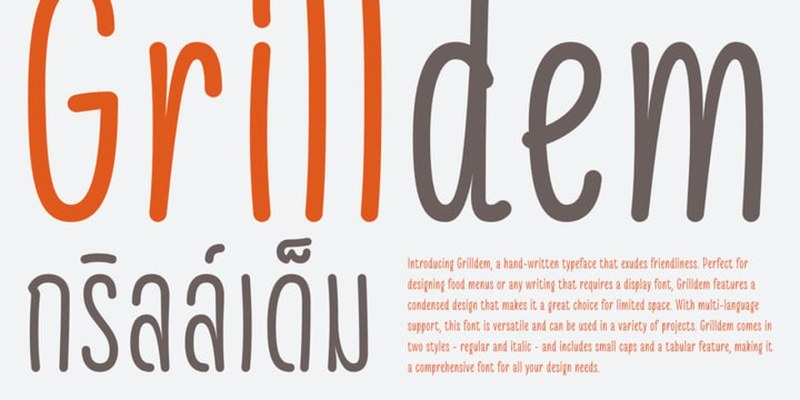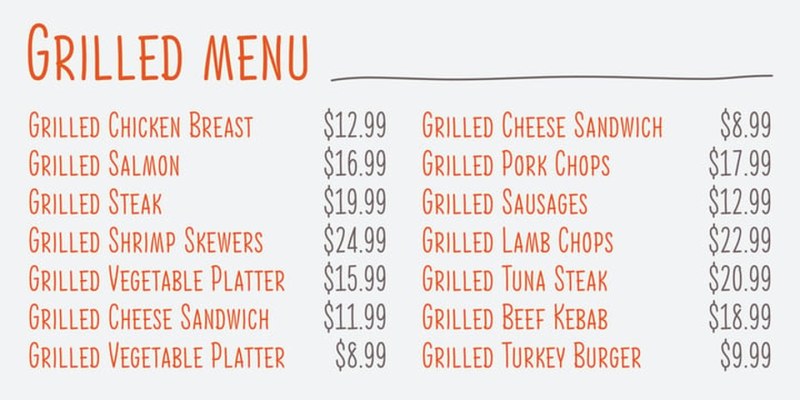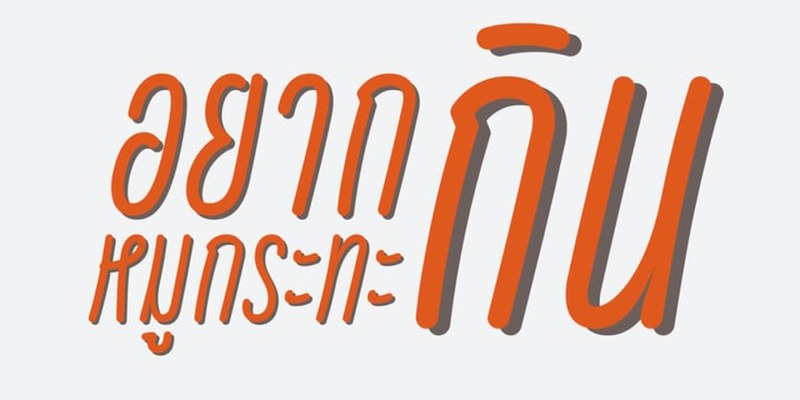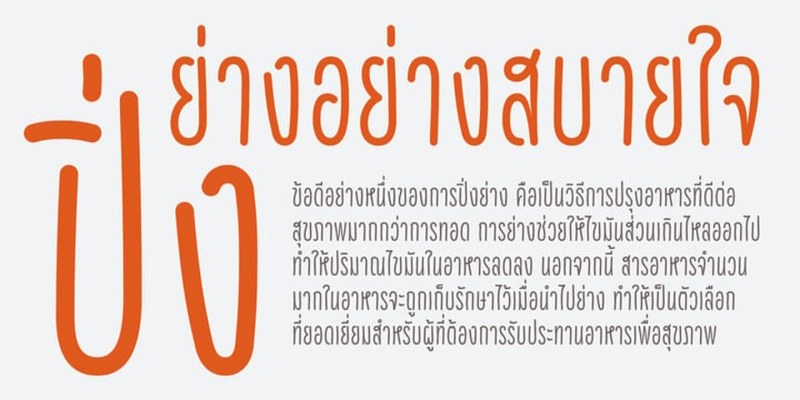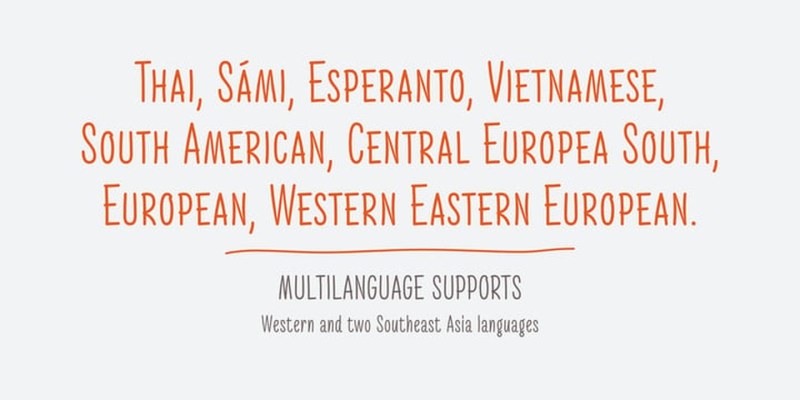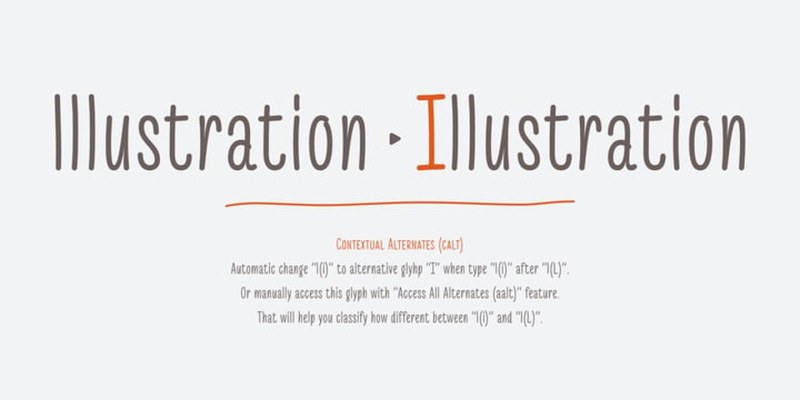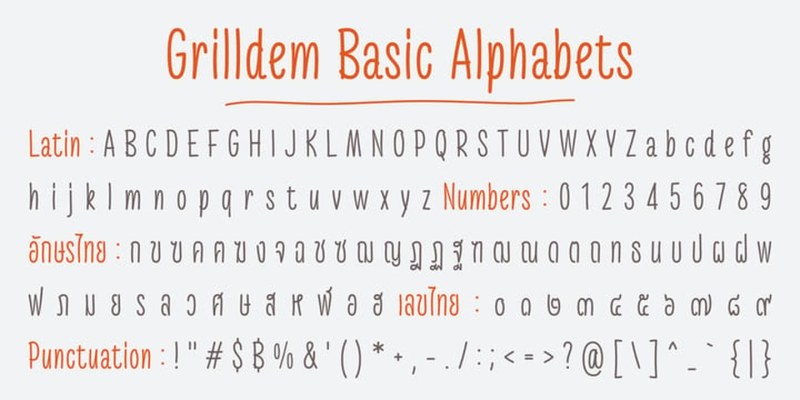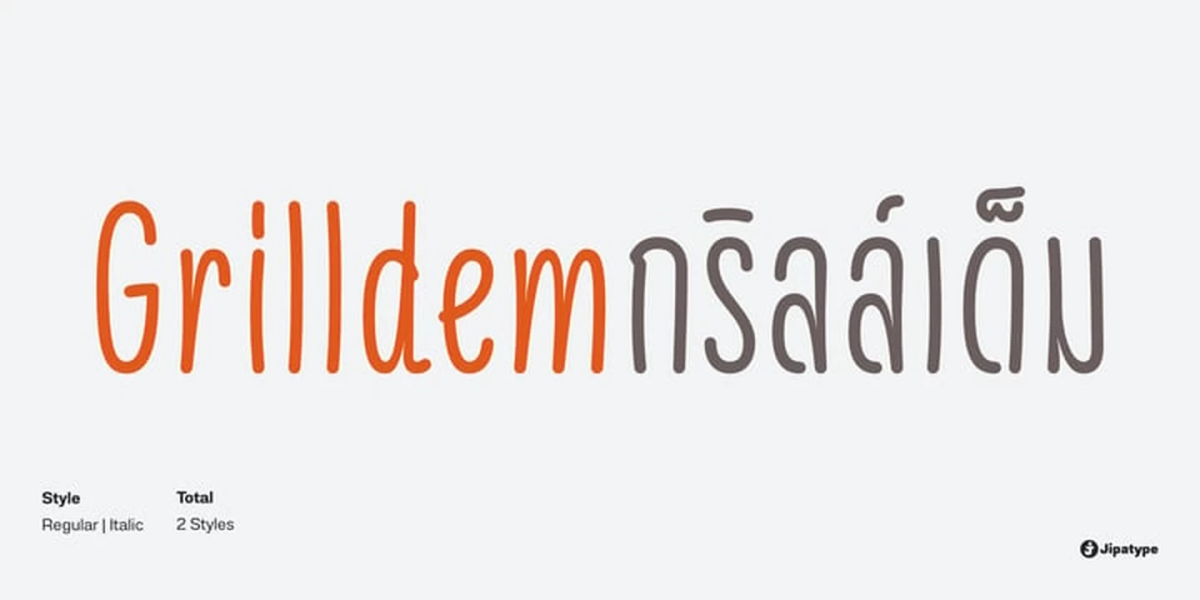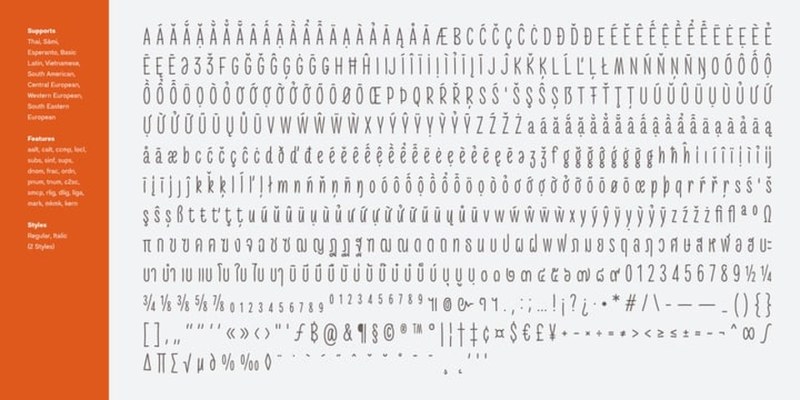
Grilldem Font Family
Introducing Grilldem, a hand-written typeface that exudes friendliness. Perfect for designing food menus or any writing that requires a display font, Grilldem features a condensed design that makes it a great choice for limited space. With multi-language support, this font is versatile and can be used in a variety of projects. Grilldem comes in two styles – regular and italic – and includes small caps and a tabular feature, making it a comprehensive font for all your design needs.
Grilldem Font Family brings a personal, handwritten warmth to invitations, menus and place cards.
Craft brands — coffee, cosmetics, bakery — use scripts like Grilldem Font Family for signature-style logos and labels.
Pair Grilldem Font Family with a plain sans for quotes, stories and Pinterest pins that feel handmade.
Grilldem Font Family is a Script And Handwritten typeface tagged Condensed, Display, Handwritten, Script. It works well for headlines, logos, posters, social media graphics and branding projects that need a distinctive script and handwritten look.